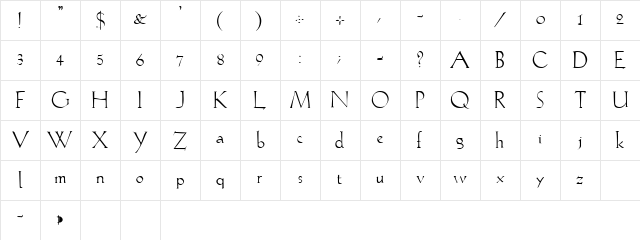
Gabel Lite Regular Lite
Style: Regular Lite
Design Context for Gabel Lite
Gabel Lite is a composed and adaptable typeface that performs quietly and consistently across a wide range of design contexts.